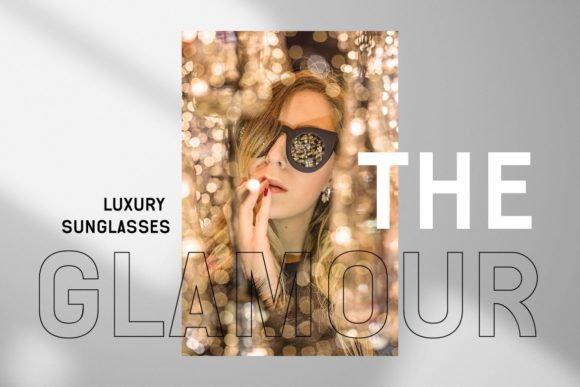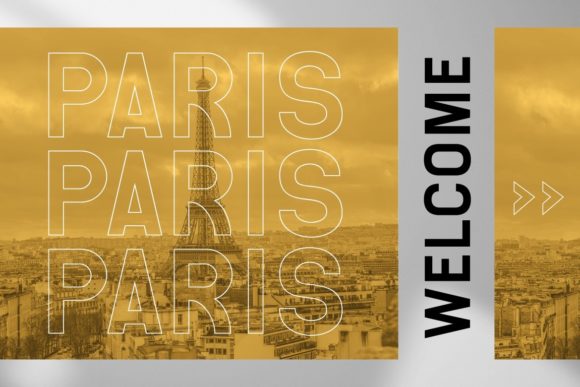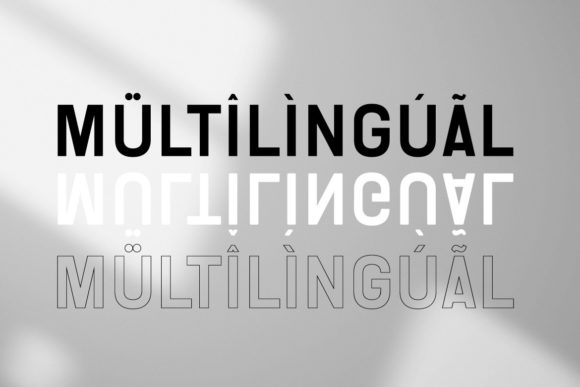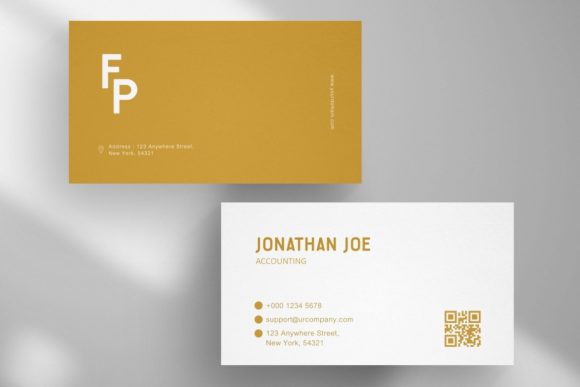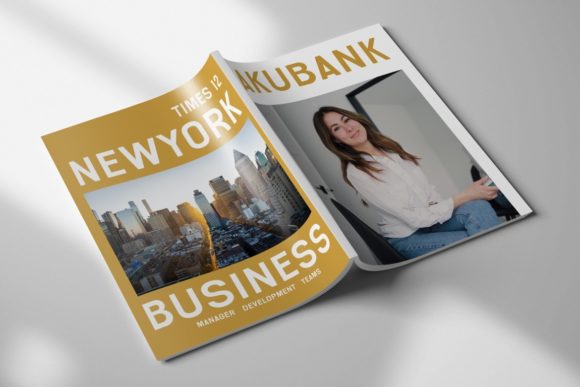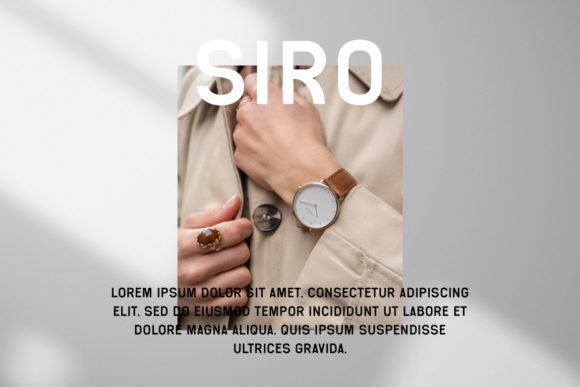
The Power of a Perfect Font: Introducing Cashflow Font
You’ve spent hours perfecting your design, carefully selecting each element to tell a story and evoke a specific emotion. But have you ever felt like something was missing? That’s where the magic of typography comes in – the right font can elevate your creation from ordinary to extraordinary. For designers, finding that perfect font can be a game-changer.
Enter Cashflow Font, a thick, lettered, and cool display font designed to take your designs to the next level. Whether you’re working on a logo, advertisement, or social media campaign, this versatile font has the potential to add a touch of sophistication and style to any project. With Cashflow Font, you’ll be able to create visually stunning designs that grab attention and leave a lasting impression.
Cashflow Font Key Features
- Font Family: A unique, modern sans-serif font designed specifically for financial and business applications.
- Character Set: Includes a comprehensive set of characters, including Latin, Cyrillic, and Greek alphabets, as well as various symbols and glyphs.
- Unique Characteristics: Features a distinctive, modern design with clean lines and a neutral color palette, making it ideal for financial and business applications.
Cashflow Font Review
Overall, I’d say Cashflow Font is a decent choice for financial and business-related designs. ✨ It’s clean, modern, and easy to read, which makes it a great option for presenting financial data or creating professional-looking documents. ✨ The font’s sans-serif design also helps to maintain a sense of clarity and simplicity, which is essential for conveying complex financial information.
- ✨ Clean and modern design: Cashflow Font’s sans-serif design makes it perfect for financial and business-related designs.
- ✨ Easy to read: The font is well-spaced and easy to read, making it perfect for presenting financial data.
- ✨ Versatile: Cashflow Font can be used for a variety of designs, from financial reports to business presentations.
- ⚠️ Limited expressiveness: Cashflow Font’s clean and modern design can make it difficult to convey emotions or creativity.
- ⚠️ Not suitable for creative industries: While Cashflow Font is great for financial and business designs, it may not be the best choice for creative industries that require more expressive typography.
- ⚠️ Limited character set: Some users have reported issues with the font’s character set, particularly with special characters and accents.
Overall, Cashflow Font is a solid choice for financial and business designs, but it may not be the best option for more creative or expressive projects.
Tips for Getting the Most Out of Cashflow Font
Use the Cashflow Font in combination with other design elements to create a cohesive and professional look.
Experiment with different font sizes, colors, and styles to find the perfect combination for your project.
Use the Cashflow Font to create attention-grabbing headlines and titles.
Cashflow Font is ideal for:
Financial reports and statements
Business presentations and proposals
Marketing materials and advertisements
Infographics and data visualizations